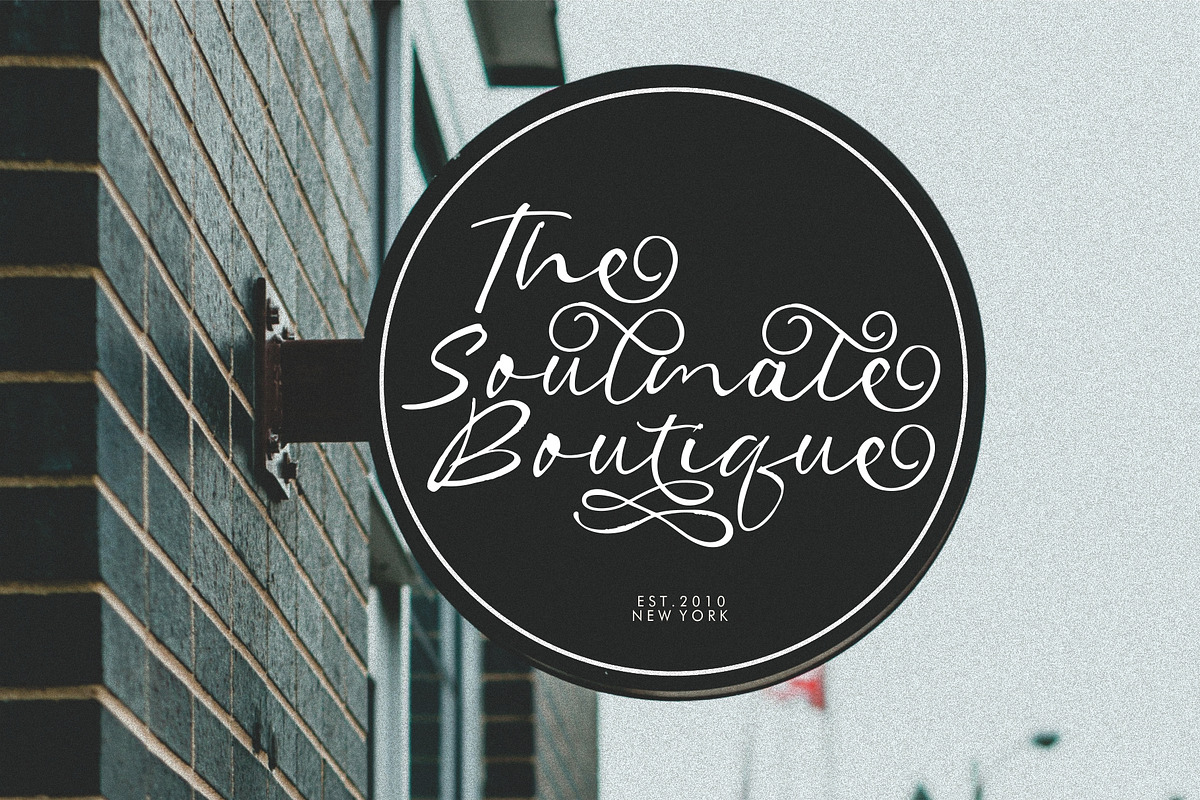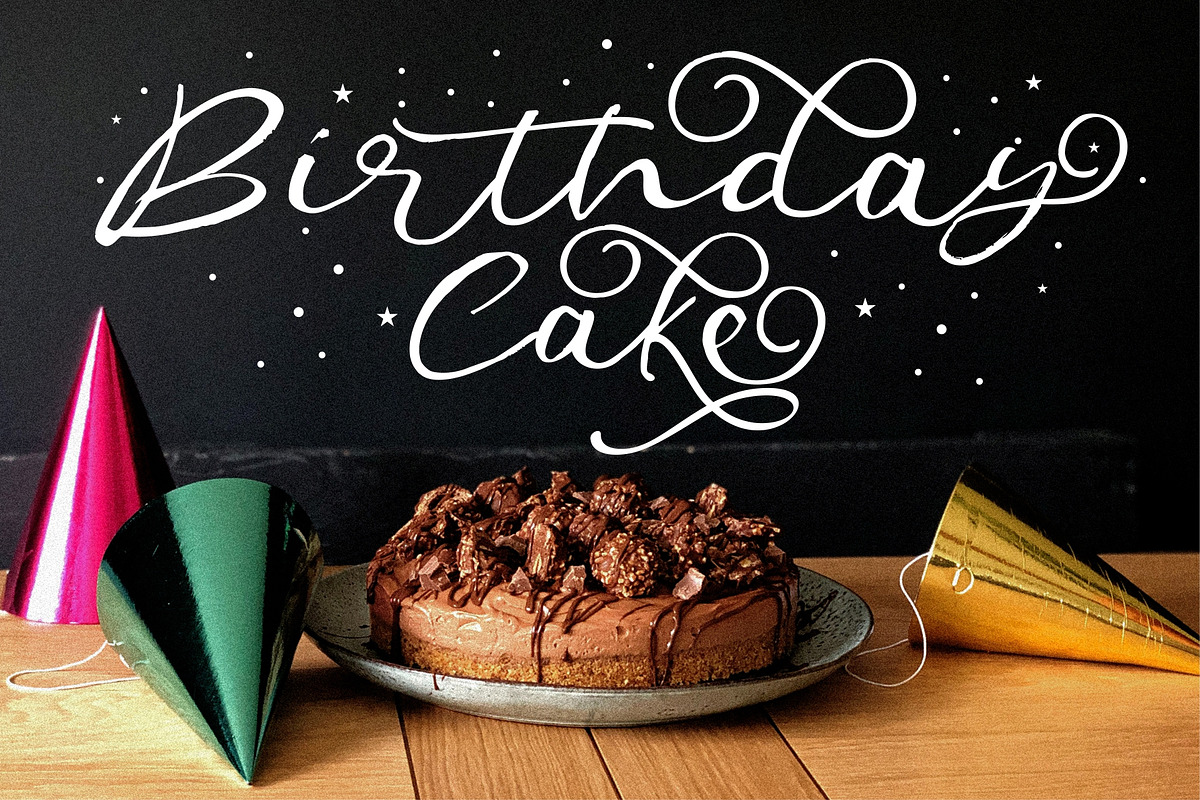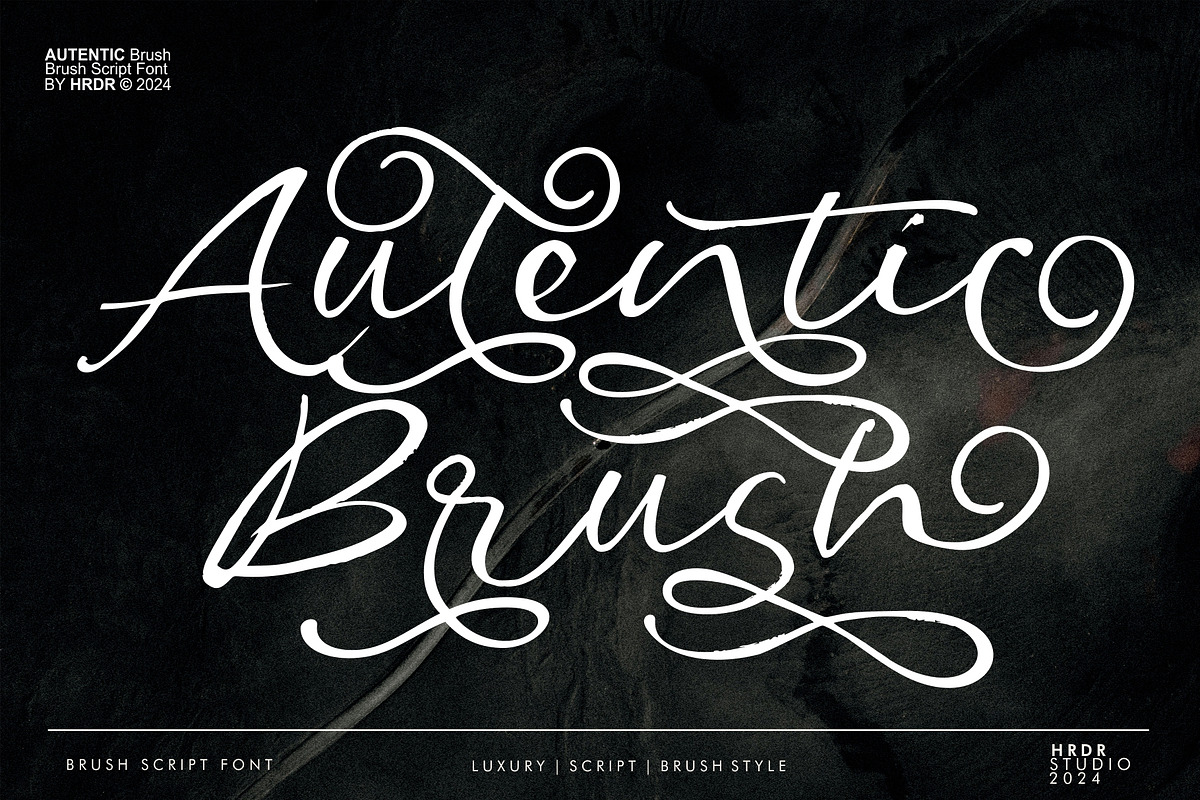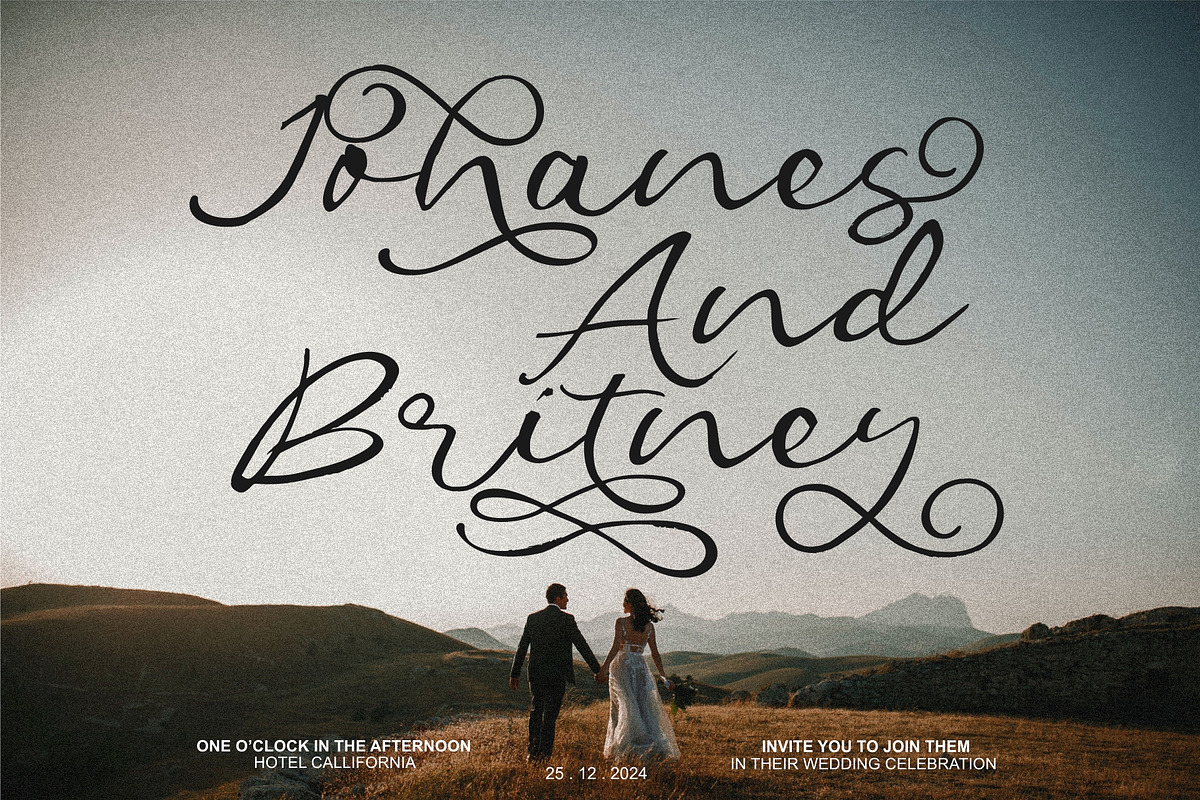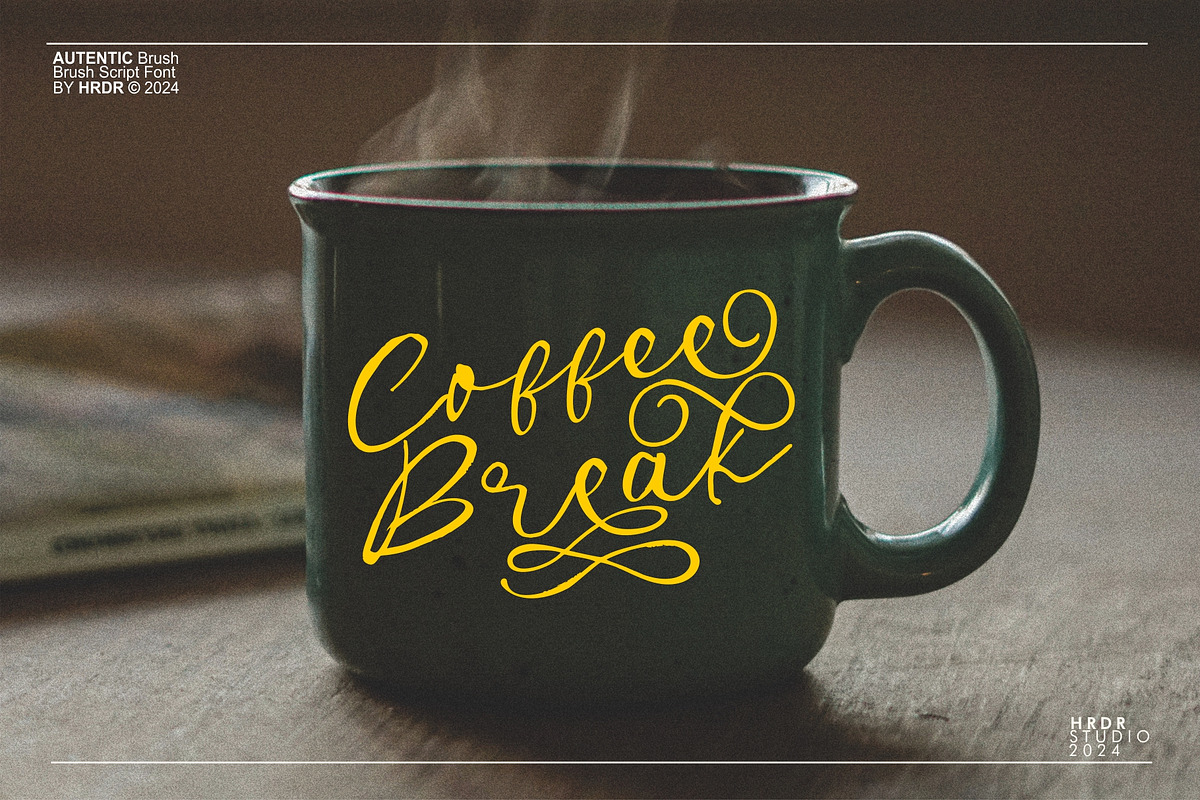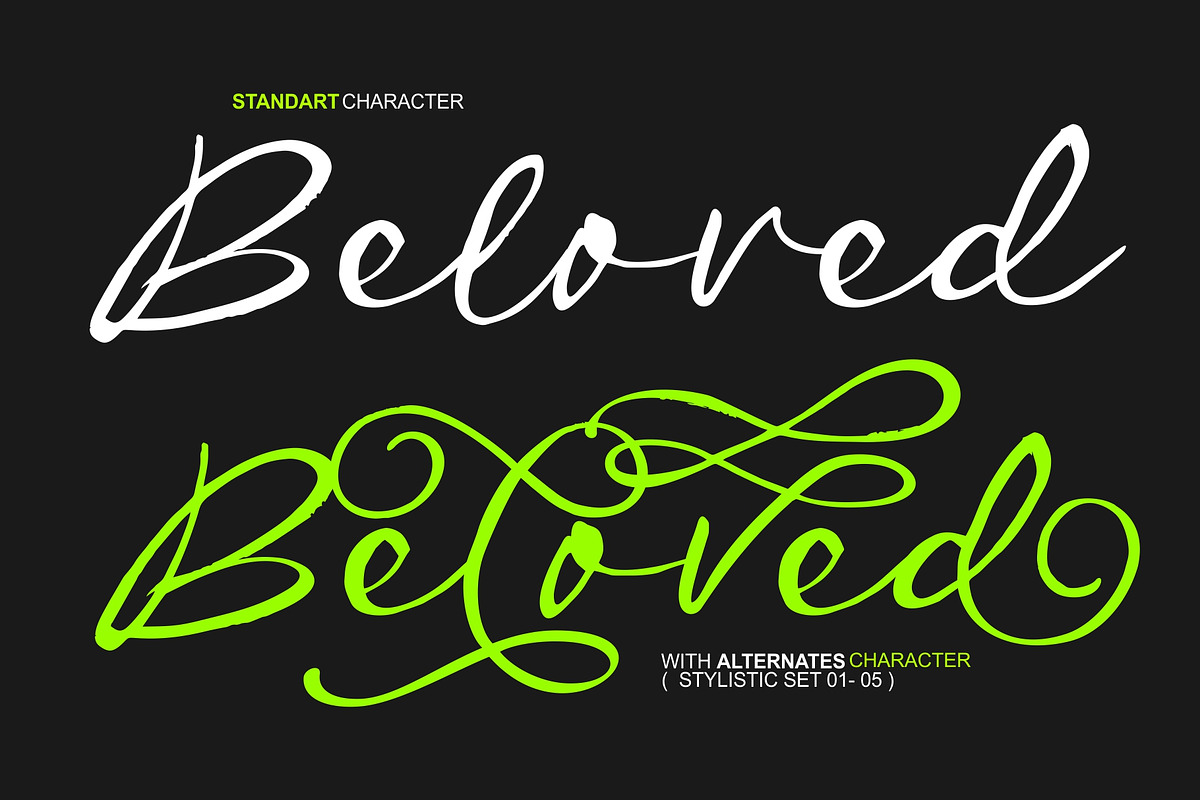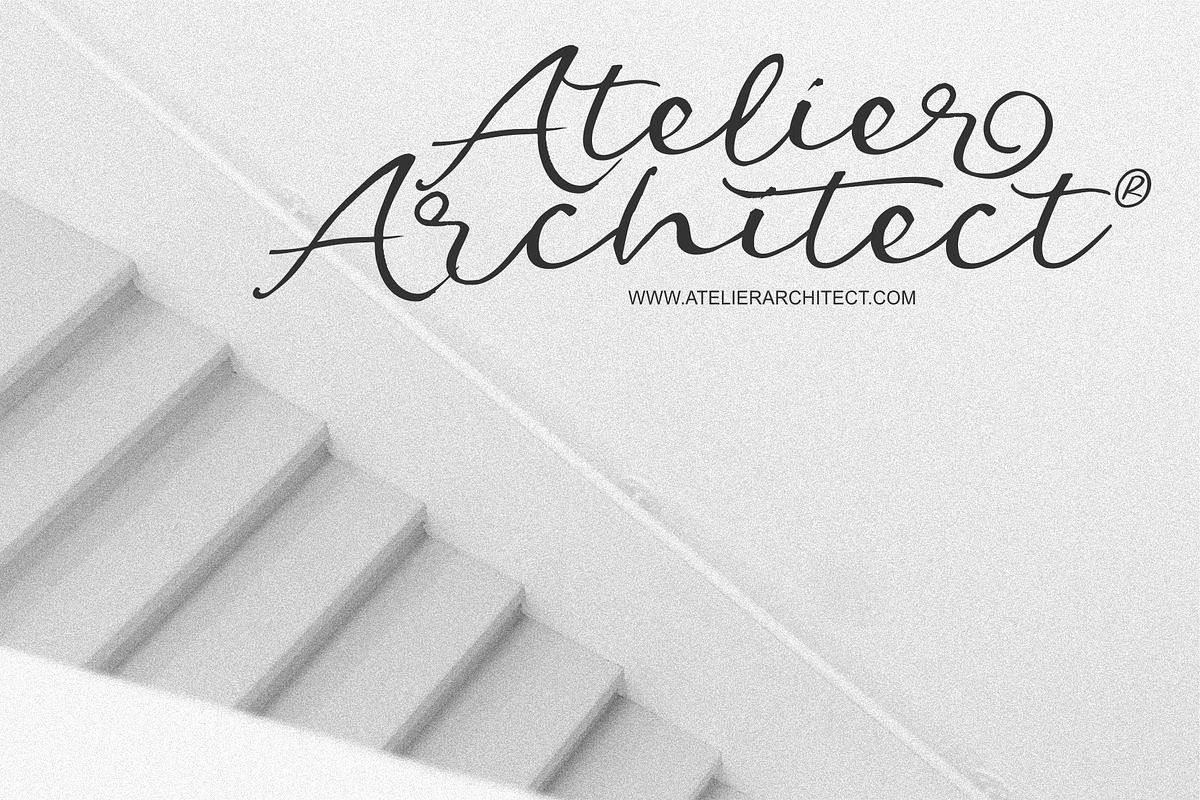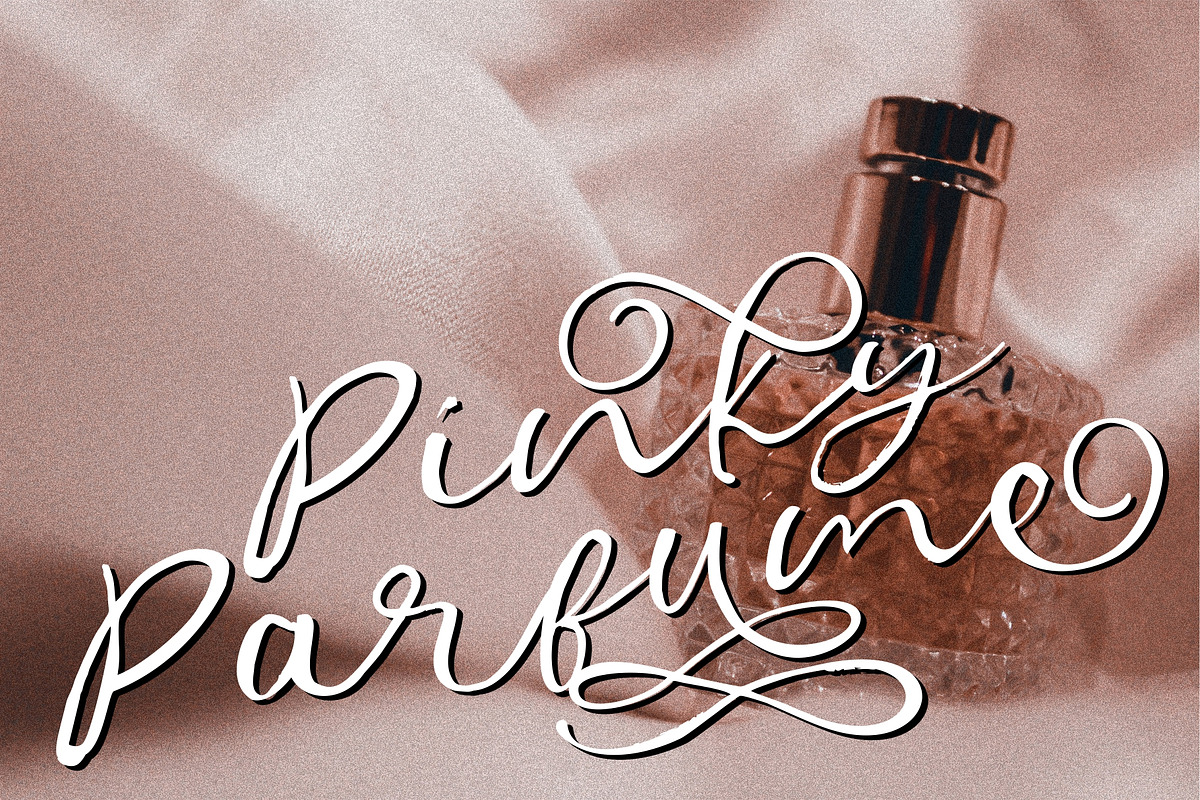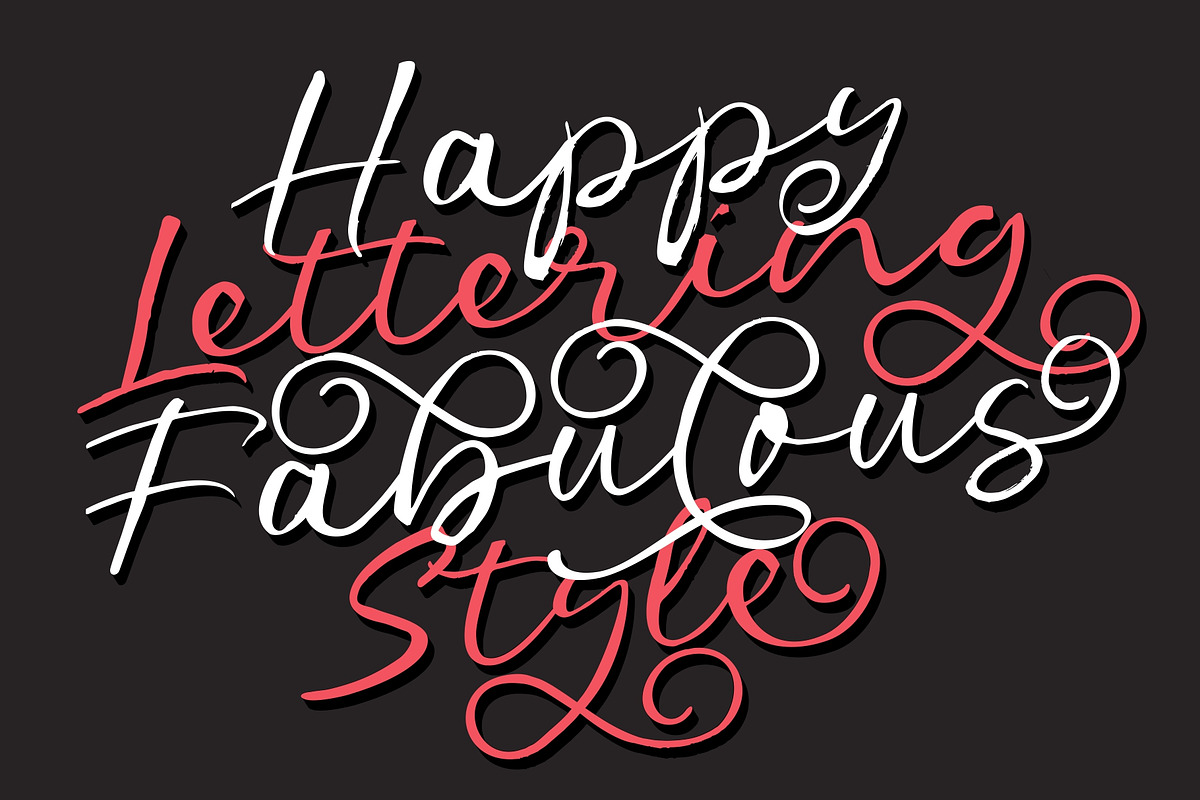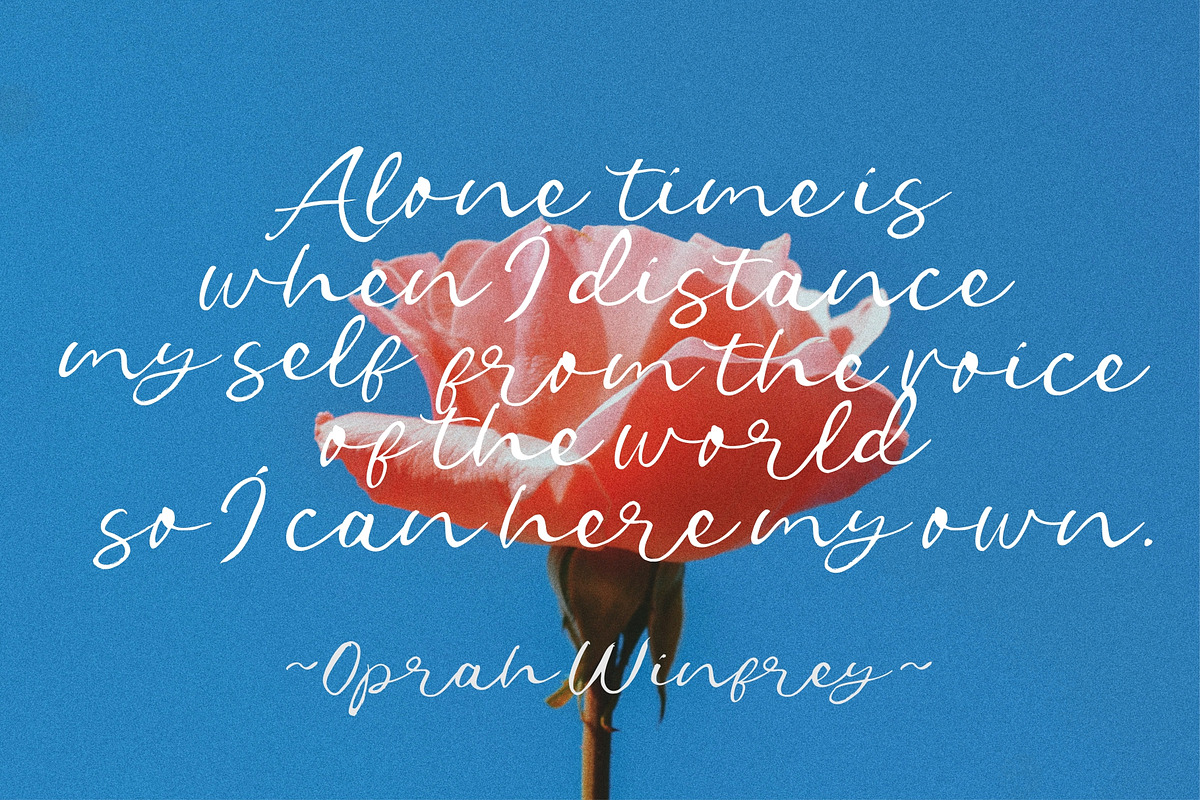
Autentic Brush
Autentic Brush is a Luxury Brush Calligraphy font created with a brush, giving it a rough, textured, and natural look, This elegant and decorative script font is perfect for fancy, romantic, and personalized design projects. Ideal for wedding invitations, greeting cards, and exclusive branding, this typeface features beautiful flourishes and swashes that add an artistic touch to any composition, and This is a perfect Calligraphy Brush font for any project.
- numeric & Multilingual support
- Stylistic Alternates with (Ss01, Ss02, Ss03, Ss04, Ss05)